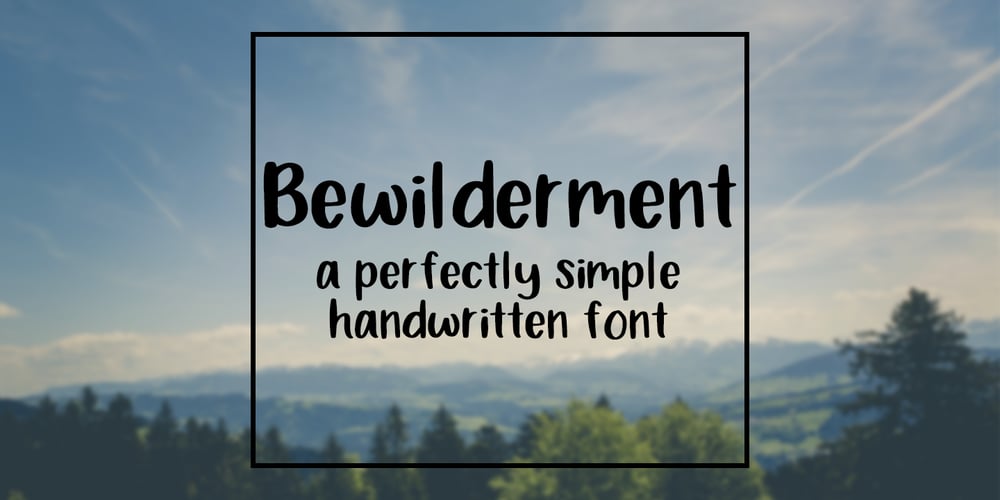
Bewilderment
Bewilderment font
Bewilderment Font Family was designed by Tate Chaffin and published by SavoringSurprises. Bewilderment contains 1 styles and family package options. Bewilderment is a hand lettered sans-serif font. The perfectly simple font could be used for a variety of projects, such as a design on a t-shirt, car decal, or tumbler! – Contains over 200 accented characters for language support. Some of the languages supported are: English, Spanish, Portuguese, German, Italian, French, Polish, Catalan, Irish, Norwegian, Croatian, Gaelic, and more! If you would like to know if a certain language is supported, please contact me with the language and/or any special characters you wanted to know about.